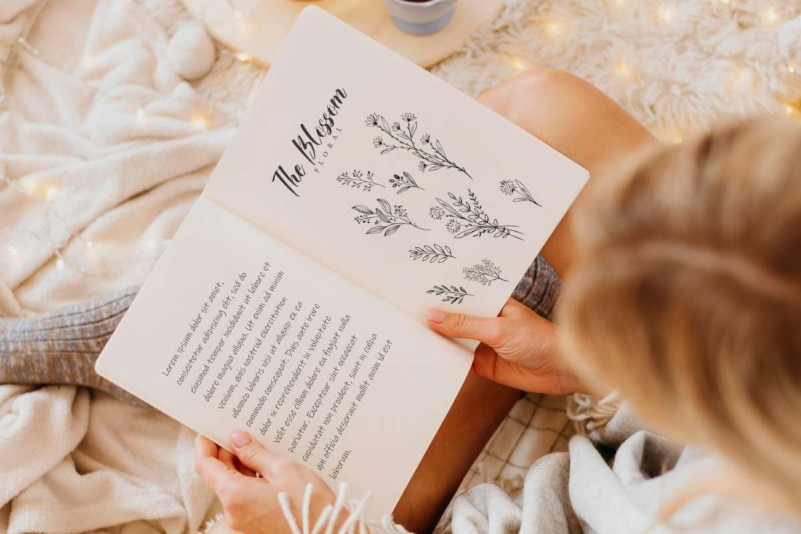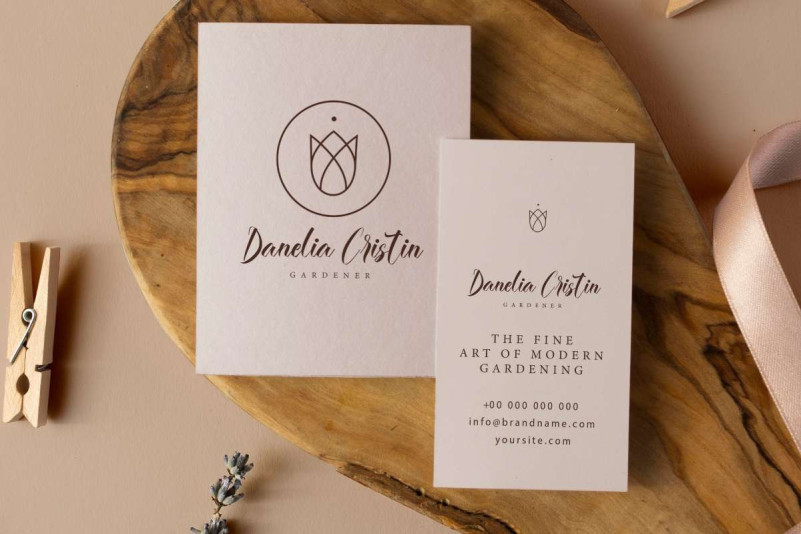
Extravagance Font
Extravagance Script Font is a beautiful script font with a special style of elegance created by EdricStudio. This font is crafted with perfection and easy to read making it suitable for any industry, such as artist, beauty clinic, café, craft, event organizer, florist, printing, restaurant, spa, and anything that needs a classy modern touch.
Extravagance Font comes with a full set of Uppercase and Lowercase Basic Characters, Number, a large range of Punctuation and Symbol. It has a stunning characters set, perfectly managed with well spaced and kerning. Extravagance Font will be great for any projects (with extended license) including : brand logo, brochure, flyer, header, label, mockup design, product packaging, signage, stationery, website, etc.
Extravagance Font also has ligature and swoosh character options that you can choose and use to make them stand out. Ready to use both on Windows machine or Mac with simple installations with multilingual characters supported. It’s tested to work well in the Adobe Apps (Illustrator, Adobe InDesign, Adobe Photoshop) even work on Microsoft Word. PUA Encode Characters means you can access all characters easily – Fully accessible without additional design software.